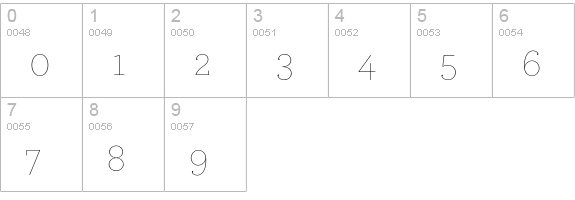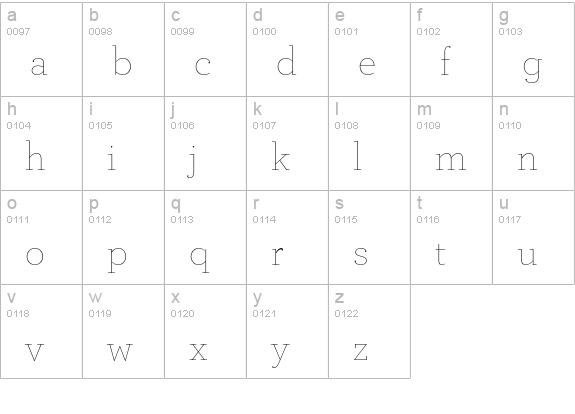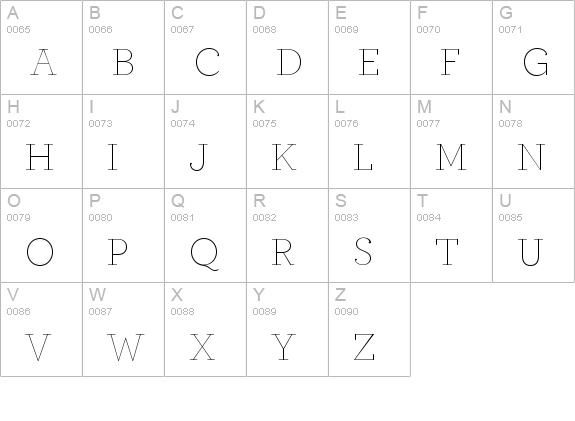
Archer Thin Font Details
Archer Thin is a delicate, low-contrast variant in the Archer typeface family \xE2\x80\x94 well suited to fashion editorial, minimal branding, and high-contrast display.
Archer Thin font is a sleek and elegant typeface that exudes sophistication and modernity. With its clean lines and subtle curves, this font is perfect for creating a minimalist and contemporary look in your designs. The thin weight of the font adds a delicate touch, making it ideal for use in headings, titles, and other display purposes. And the best part? Archer Thin font is available for free download at FontsMarket.com! So you can easily add this stylish font to your collection without any cost. Whether you're working on branding, packaging, or any other creative project, Archer Thin font will bring a touch of class and refinement to your designs. Download it now and elevate your work with this versatile and elegant typeface.